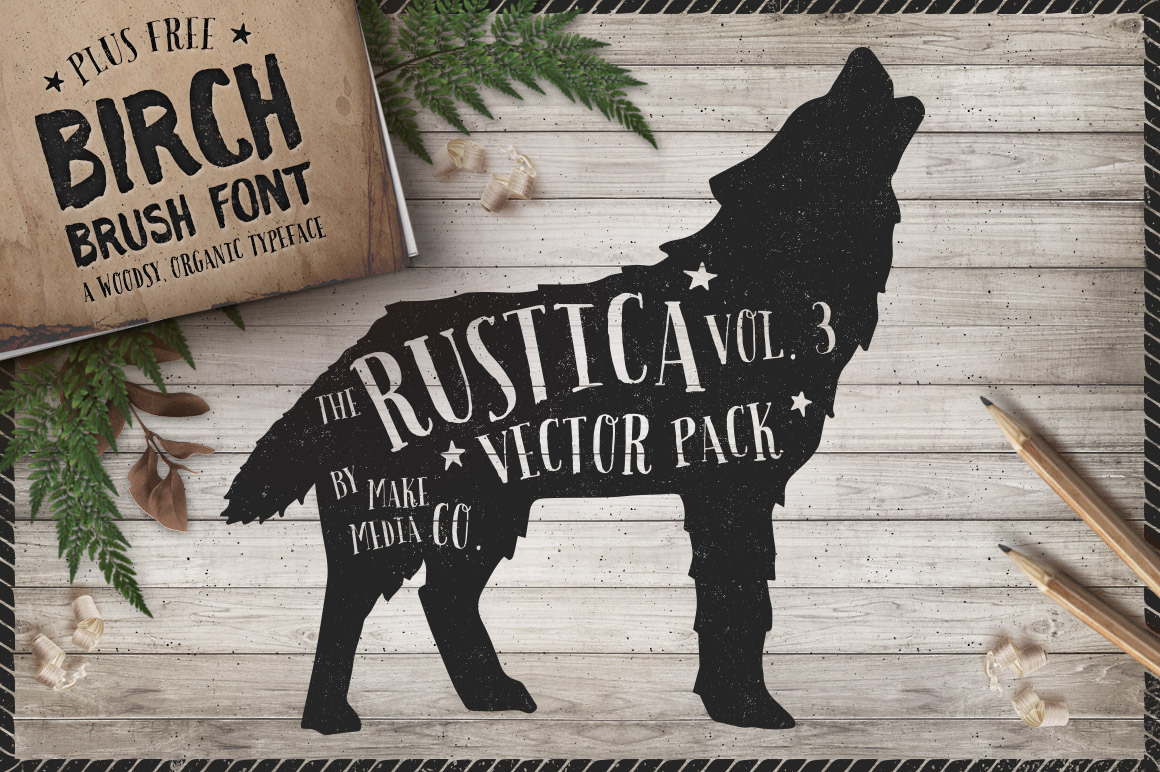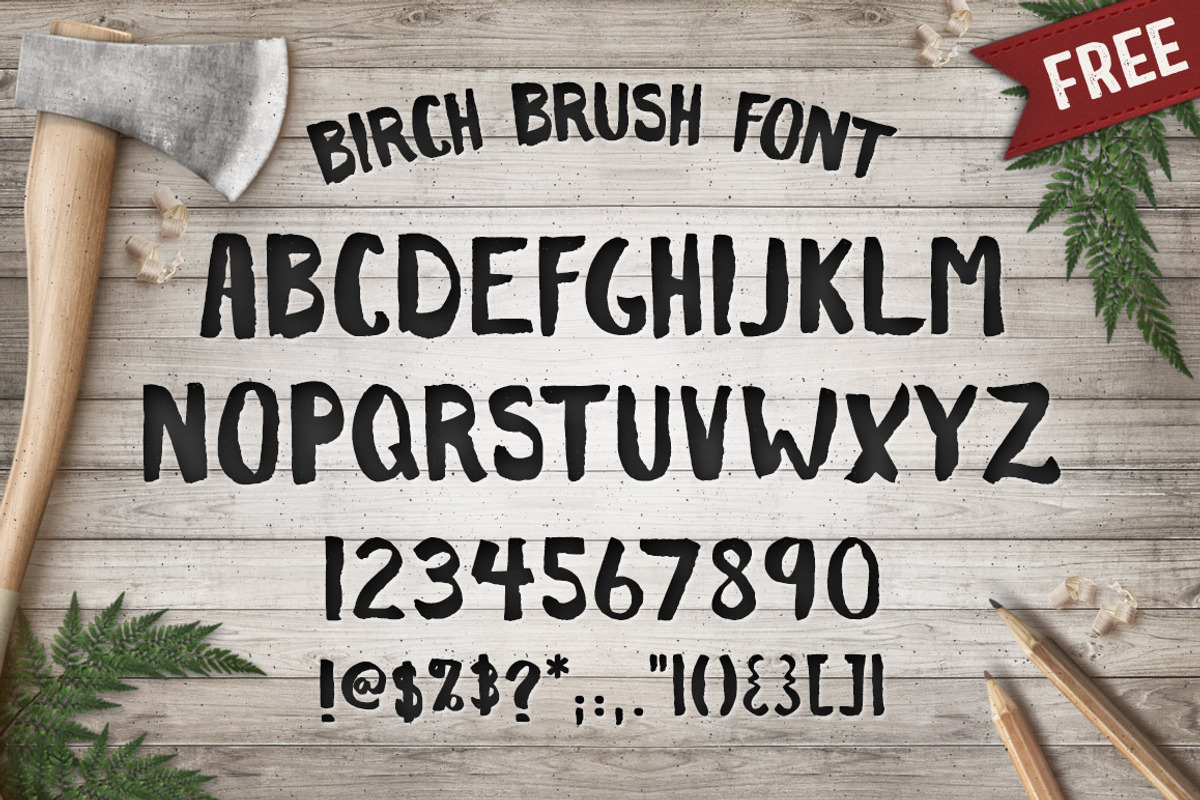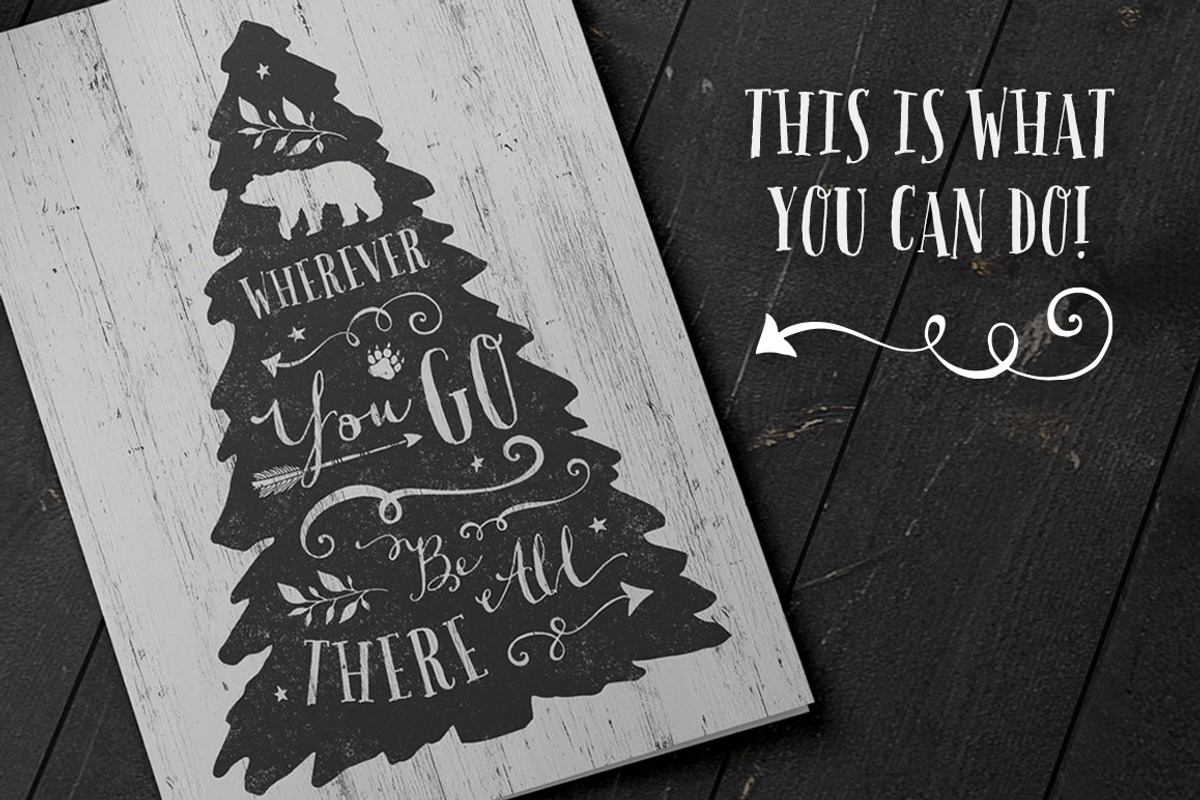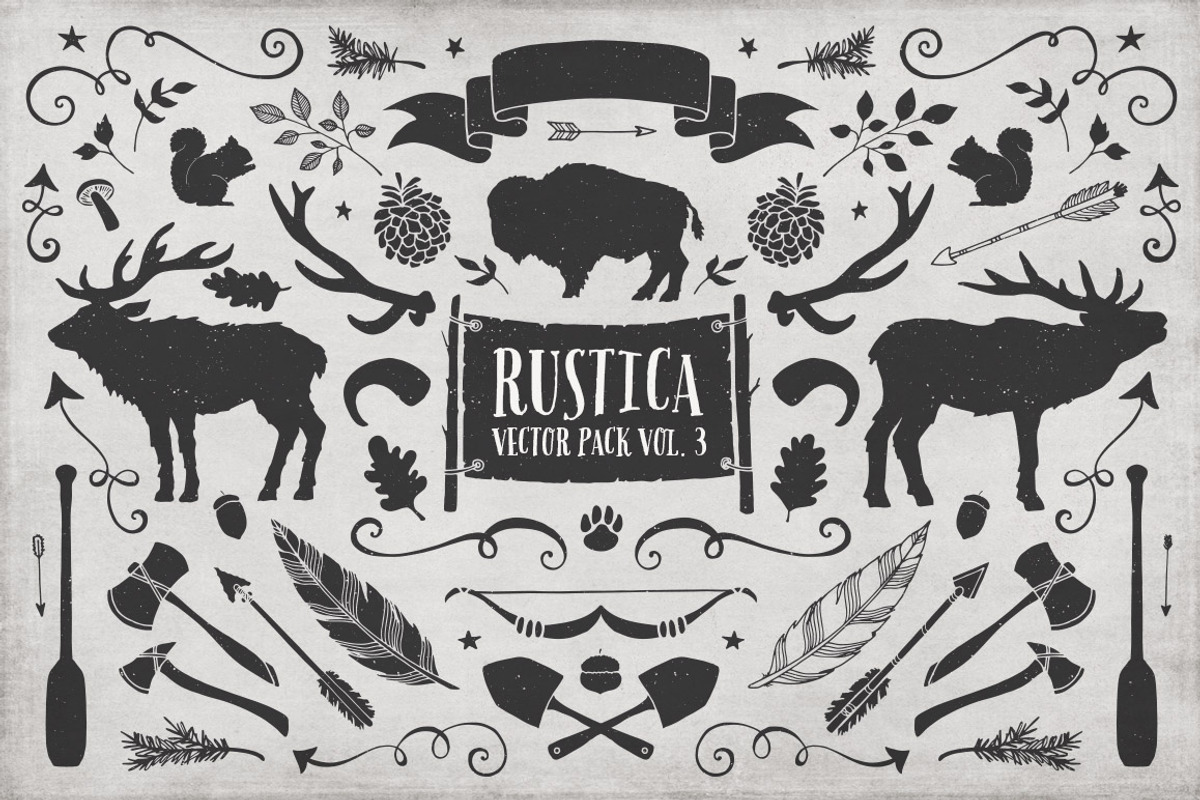
Rustica Vol. 3 + Birch Brush Font
By popular demand, the Rustica Pack is BACK! I was pretty sure that the rustic series was a done deal, but in recent weeks, I've had a steady number of requests for more rustic items. So, here's a third round of rustic love, with over 90 new and unique items, and a FREE hand-painted brush font to go with it. Yes, that's right, an all-caps brush font with numbers & punctuation. Just 'cause. :)
Use the elements & font to compliment rustic wedding invitations, save the date cards, apparel, logos, typography and more!